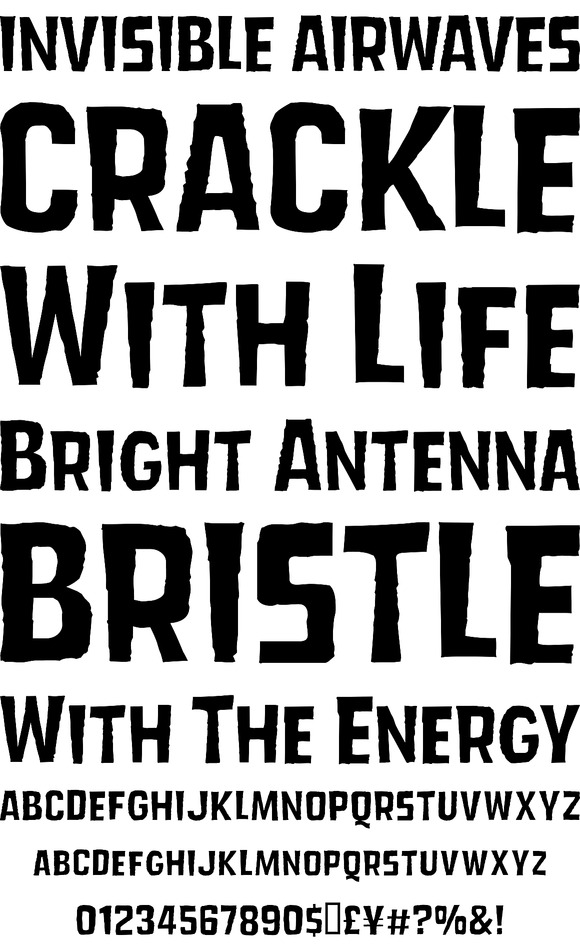
Dead Zone
This family was inspired from type found on a horror movie poster of the 1950s.
Each font in the Dead Zone™ family has a full character set of 232+ letterforms, with all characters designed in the style of the font. Some fractions and the Euro symbol are also included.